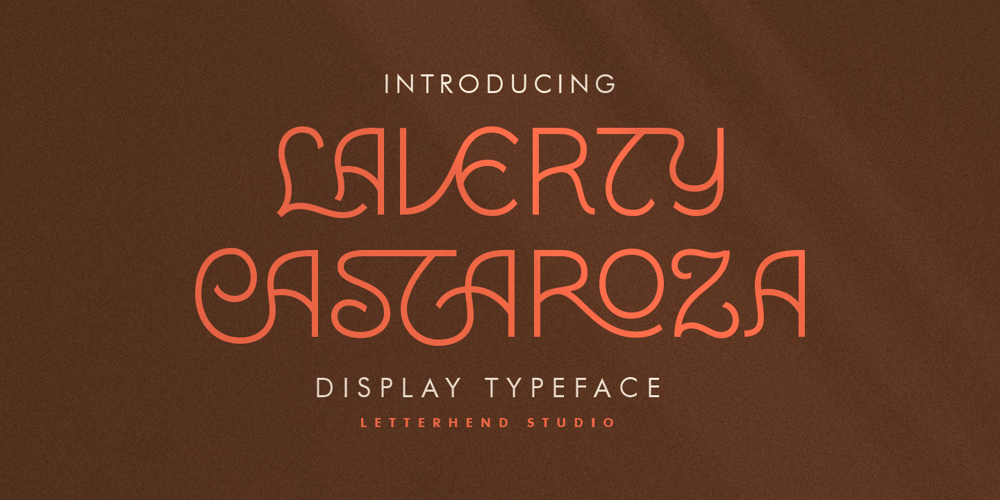
Laverty Castaroza
Laverty Castaroza font
Laverty Castaroza Font Family was designed by Hendry Juanda and published by Letterhend. Laverty Castaroza contains 4 styles and family package options. Introducing, Laverty Castaroza. A one of a kind display typeface with unique ligatures, provided in 4 weights – bold, medium, regular, light. This font perfectly made to be applied especially in logo, and the other various formal forms such as invitations, labels, logos, magazines, books, greeting / wedding cards, packaging, fashion, make up, stationery, novels, labels or any type of advertising purpose.Features : uppercase & lowercase numbers and punctuation multilingual ligatures alternates swashes PUA encoded We highly recommend using a program that supports OpenType features and Glyphs panels like many of Adobe apps and Corel Draw, so you can see and access all Glyph variations.For accessing opentype feature, kindly check this link letterhend.com/tutorials/using-opentype-feature-in-any-software/Email us to letterhend@gmail.com if you need something! Happy Designing!